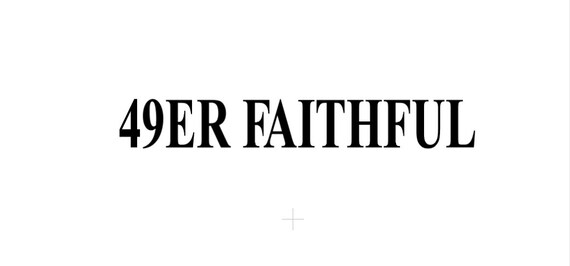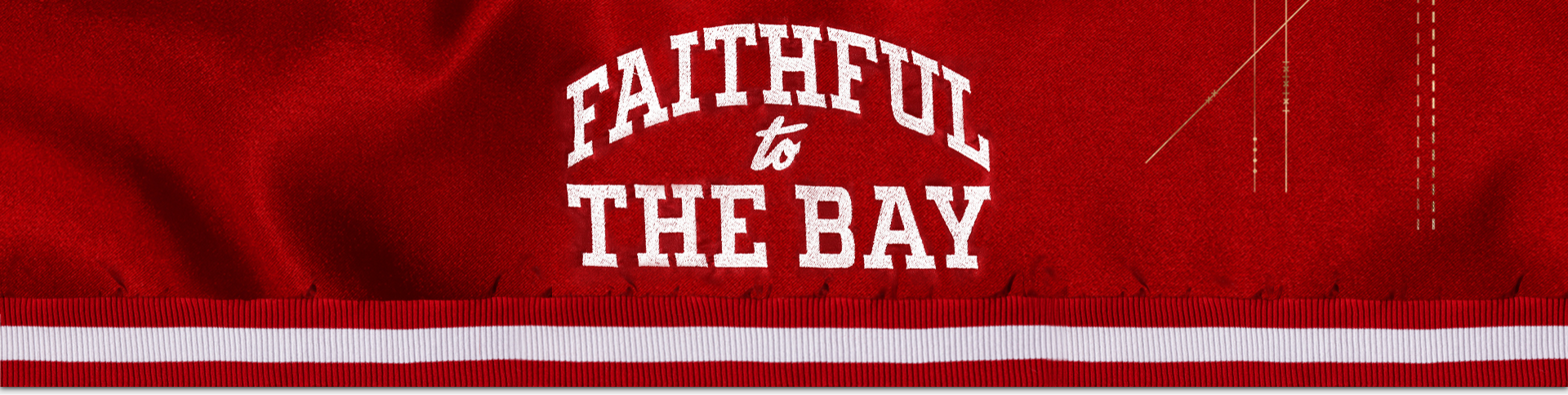
49ers Faithful Font
And it has available only in a single regular style along with 63 number of characters.
49ers faithful font. Size quentin caps by dieter steffmann. 49ers font family the quentin caps font was created by mr. In fancy retro 335512.
The faithful font will be used by the marketing team for print collateral and social media. Faithful font created the faithful font to match the existing san francisco 49ers logos. 2550 results for nfl team fonts related keywords 3 nfl team fonts 2549 nfl team fonts seahawks 2549 32 nfl team fonts 2550.
What font does san francisco 49ers use. 49ers faithful font faithful is the official brand font of the san francisco 49ers based on the iconic sf monogram introduced in the early 1960s and a continuation of the 49ers logo type introduced in mid to late 1980s. The best characteristic of this typeface is that it shows astounding readability even in the widescreen or on any hoarding displays.
I referenced the clarendon bold font which was very similar to the logo and made the necessary refinements to the letter forms. 49ers faithful font faithful is based on the iconic sf monogram introduced in the early 1960s and a continuation of the 49ers logo type introduced in mid to la read more 49ers font. 49ers faithful font faithful is based on the iconic sf monogram introduced in the early 1960s and a continuation of the 49ers logo type introduced in mid to la read more.